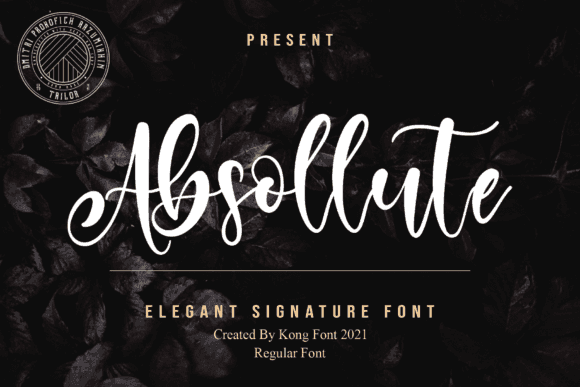
Absollute Font for Cricut, Silhouette and Printable Designs
This is a flowing script font designed to deliver elegant handwritten style across crafting machines and printable projects. Its smooth curves and natural letterforms offer creative flexibility for both digital layouts and physical design work.
As a font entity, Absollute supports text-based designs used in Cricut and Silhouette workflows, as well as in printed materials such as greeting cards, wall art, and merchandise. It installs easily and is cut-ready with minimal editing. With its versatile style and user-friendly features, the andarilho font for crafting projects elevates any creative endeavor. Whether you're designing personalized gifts or decorative elements for home décor, this font enhances the overall aesthetic of your designs. Experience the perfect blend of creativity and functionality as you incorporate this font into your artistic toolkit. Additionally, Absollute offers versatility for various crafting projects by seamlessly integrating with popular design software. The alberteen font for crafting projects enhances your designs with its unique style, making it perfect for personalized gifts and home décor. With its user-friendly features, creating custom designs has never been easier or more enjoyable.
Whether you're personalizing a wedding sign, making a handmade gift, or designing printable labels, Absollute adds beauty and flow to every word.
- Wedding signage and custom invites
- Printable quotes and home décor
- Vinyl decals for mugs, shirts, and signs
- Branded labels, tags, and packaging
- Craft fair goods and printable downloads
- Graceful handwritten script with smooth curves
- Beautiful for branding, crafts, and decor
Q: What type of font is Absollute?
A: Absollute is a script font with smooth, elegant strokes designed for crafting and printable projects.
Q: Can this font be used to create printable products?
A: Yes, it’s perfect for printable goods like signs, tags, and custom paper goods.